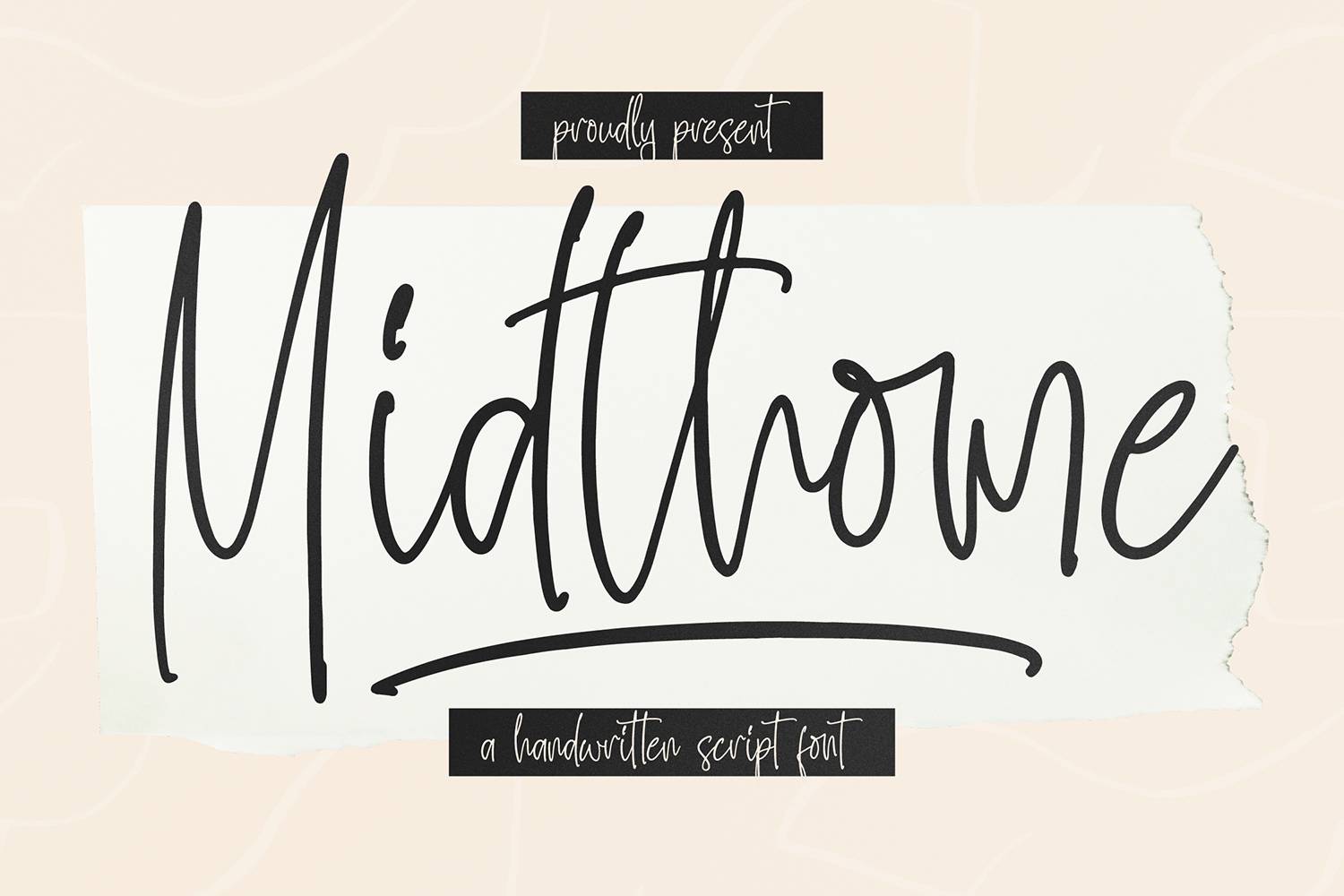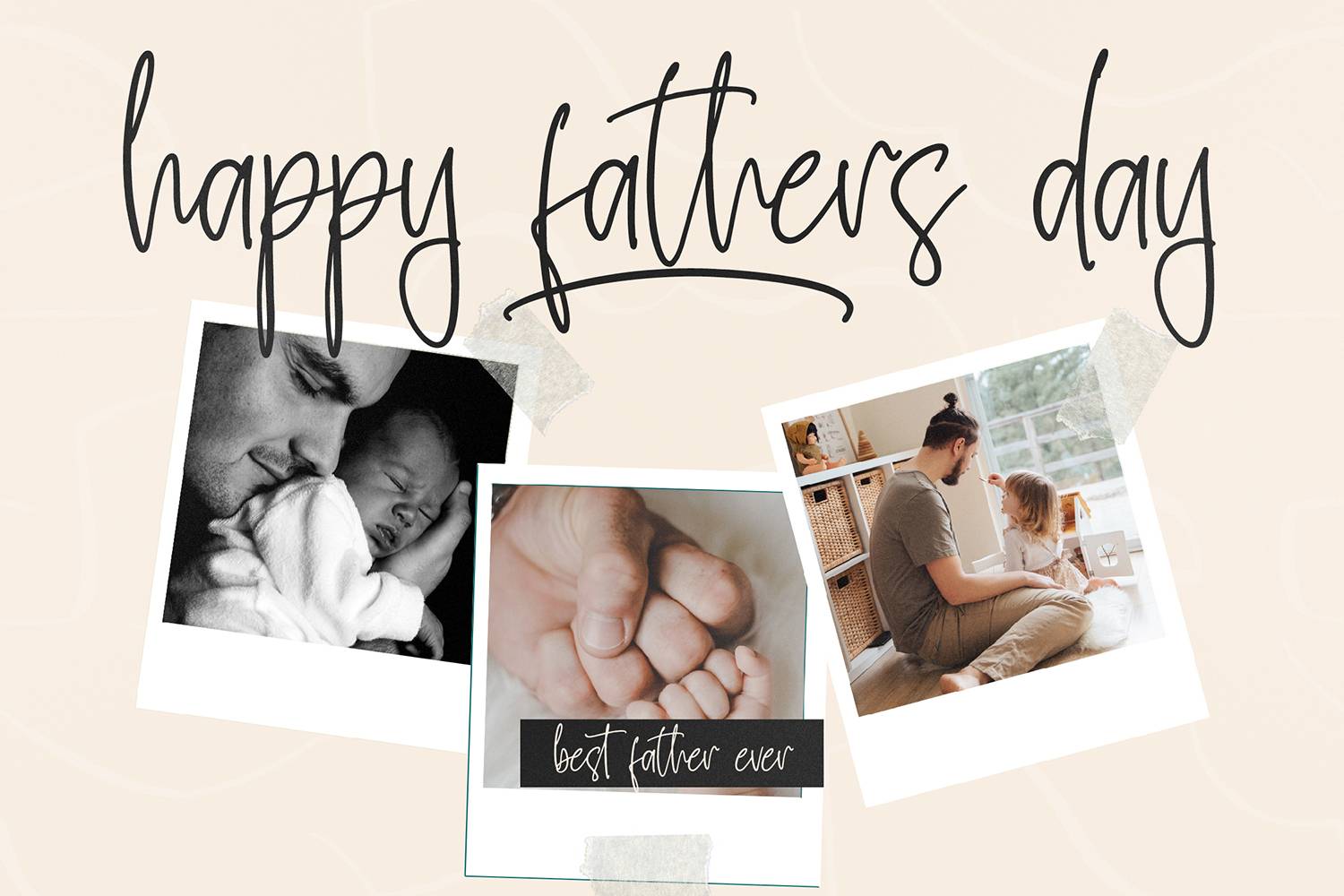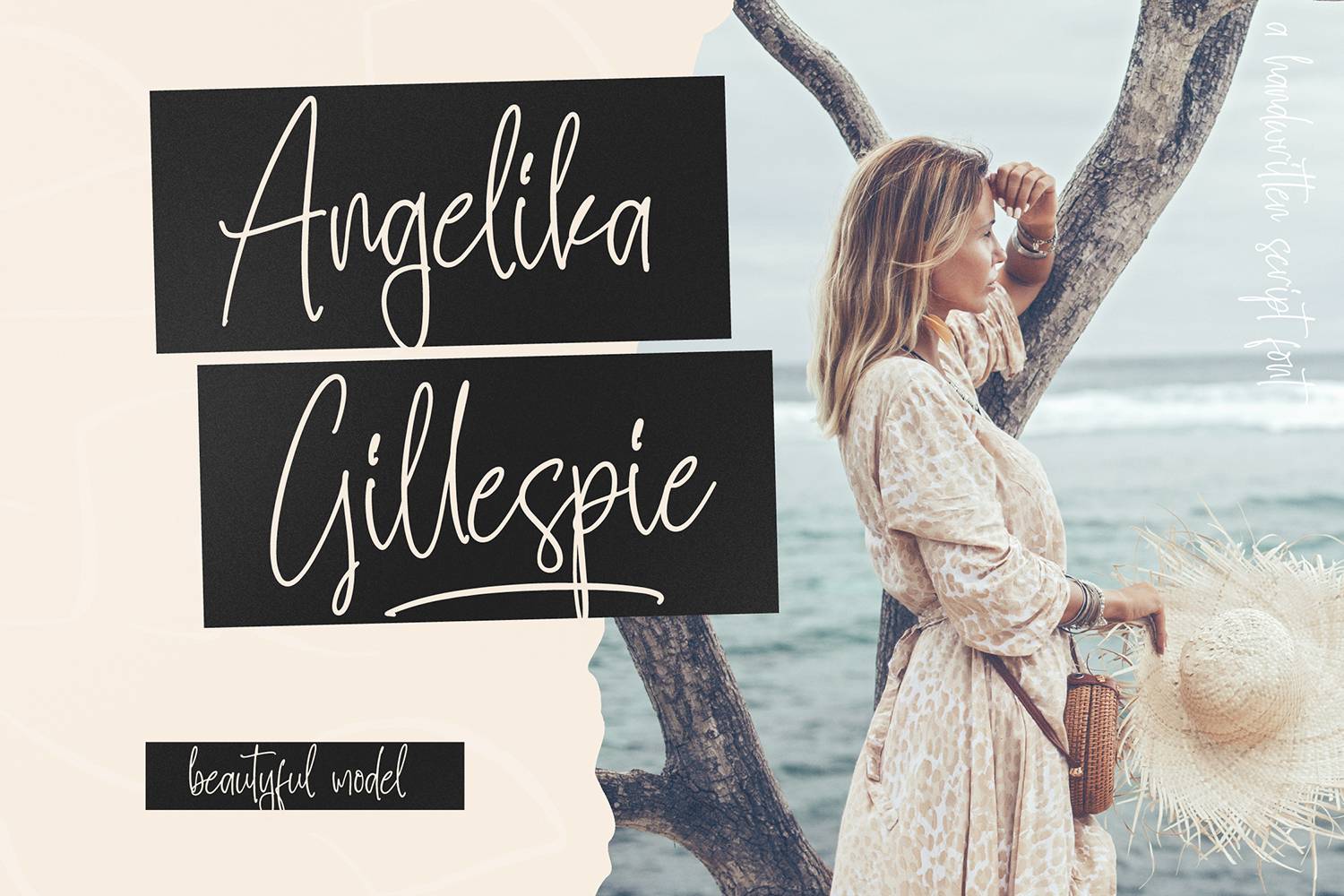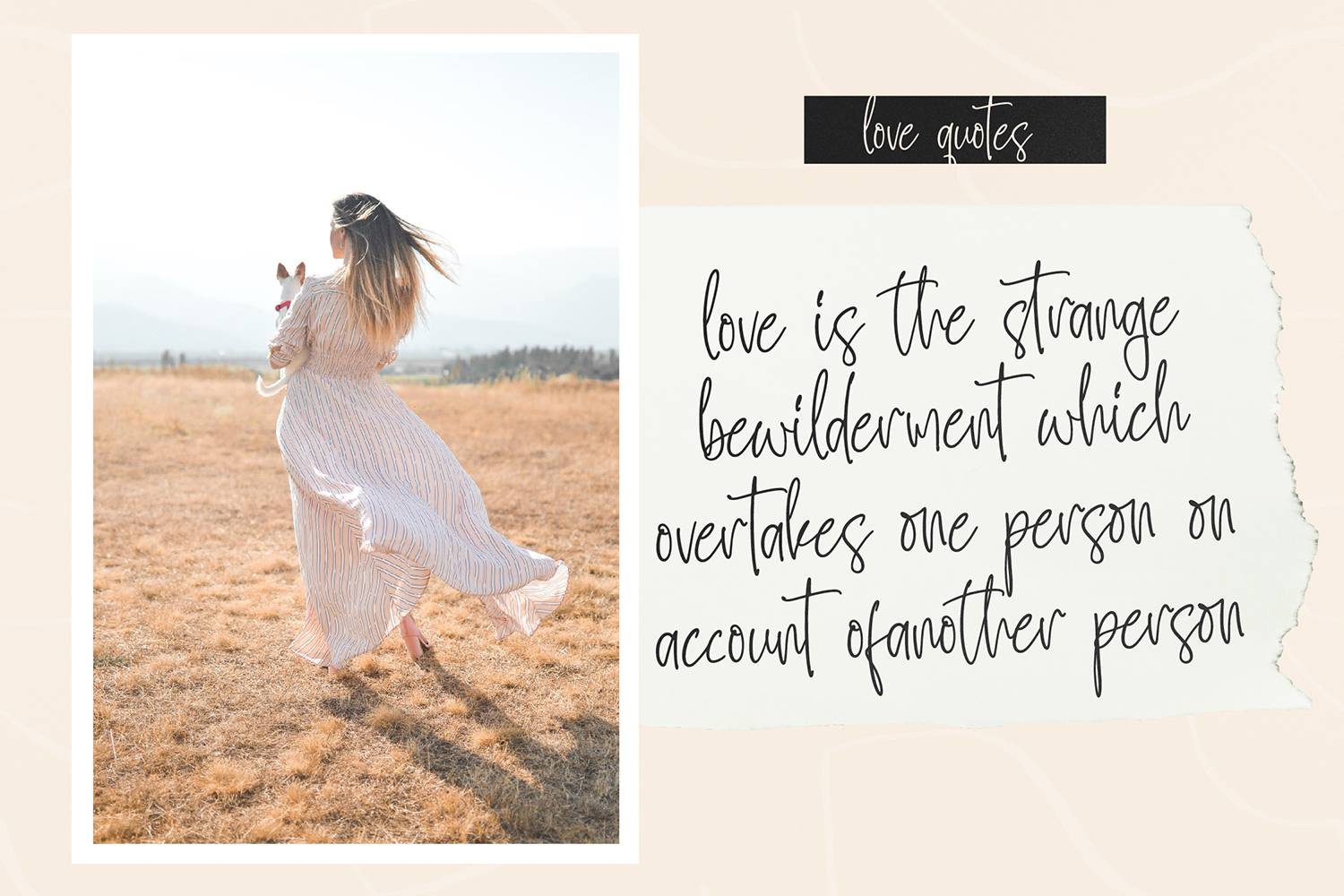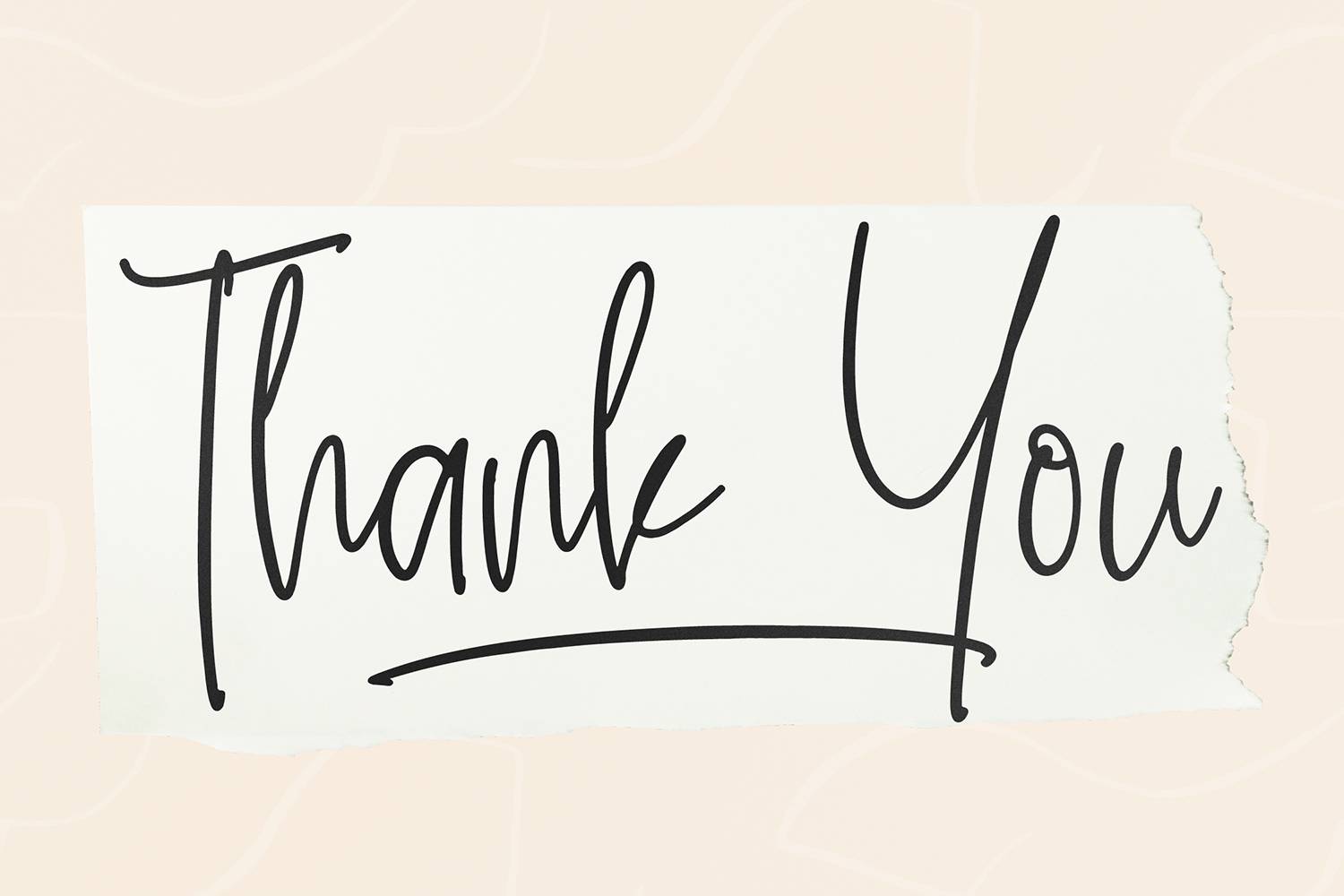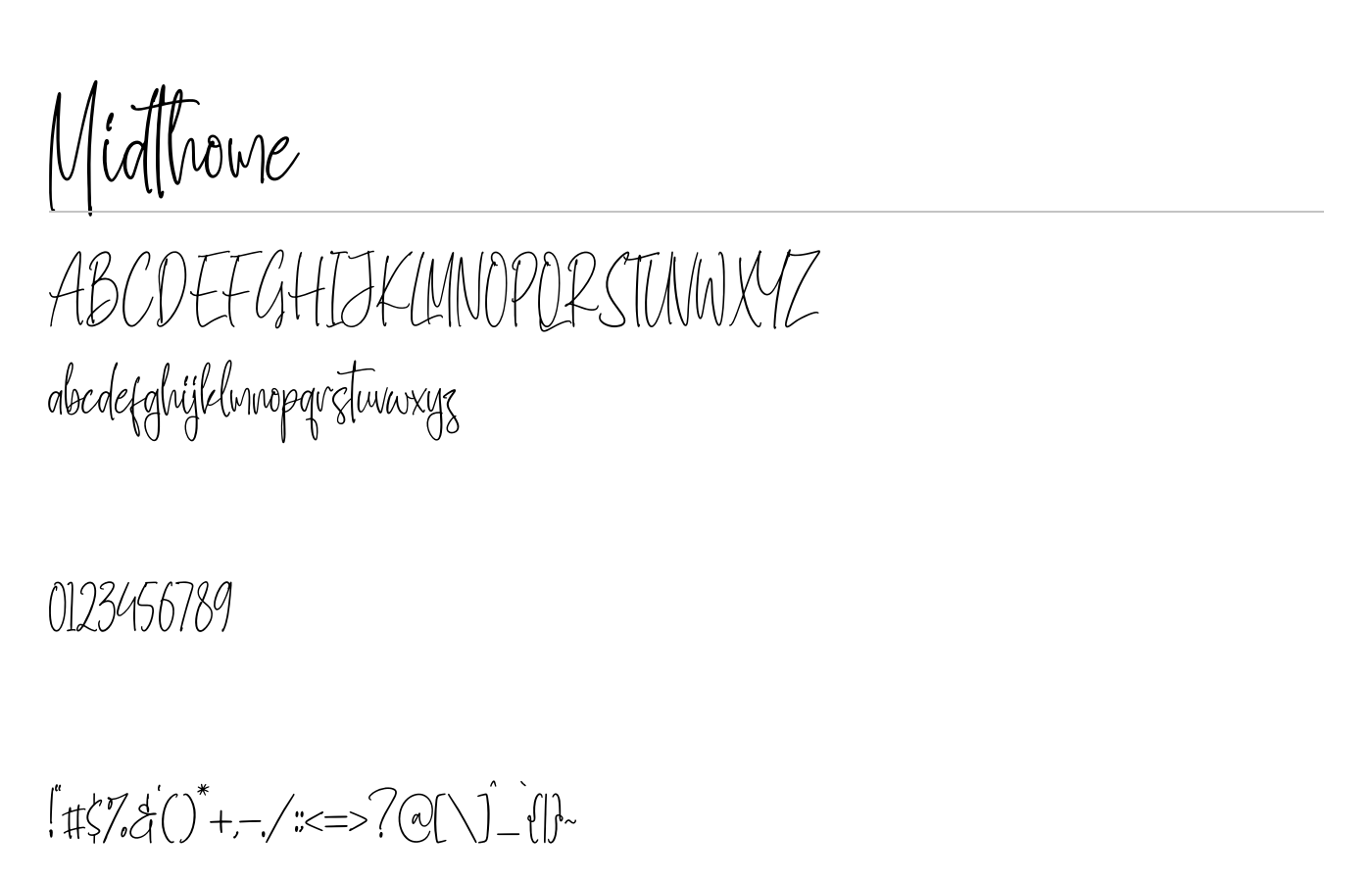
Midthome is a delicate, handwritten-style sans serif font characterized by its tall, narrow letterforms and fine, consistent stroke weight. Its airy, casual elegance makes it ideal for creative projects, personal branding, and light, stylish headlines where a friendly and contemporary touch is desired. This font works well in designs that seek a natural, approachable feel with a modern handwritten charm.
Midthome Font
About Midthome Font